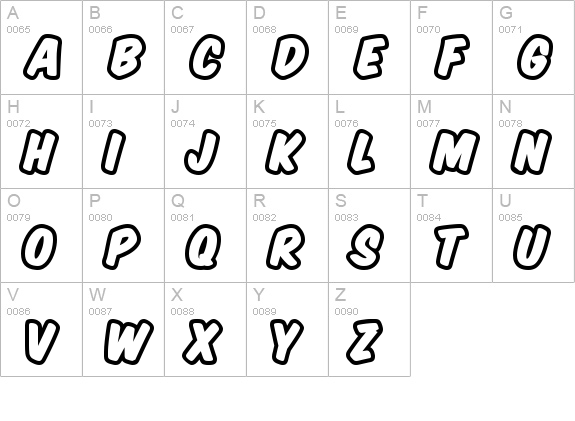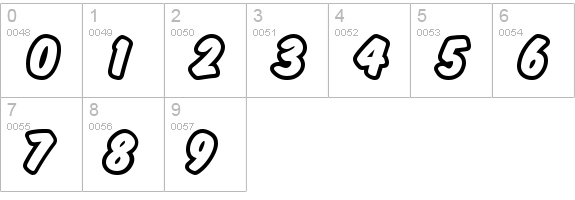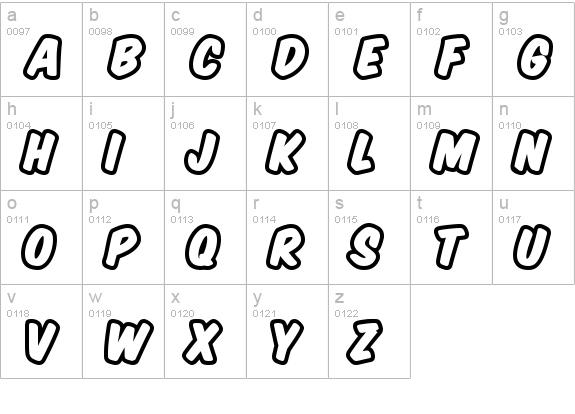
Komika Title is a captivating brush font that exudes a sense of creativity and playfulness. With its bold strokes and unique character shapes, this font is perfect for making a statement in your designs. Whether you are working on a poster, logo, or social media graphic, Komika Title will add a touch of energy and excitement. Best of all, this font is available for free download at FontsMarket.com, making it accessible to everyone looking to elevate their projects with a touch of artistic flair. Embrace the artistic charm of Komika Title and let your creativity shine!